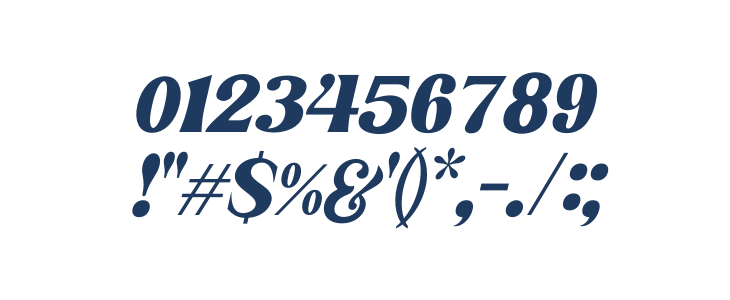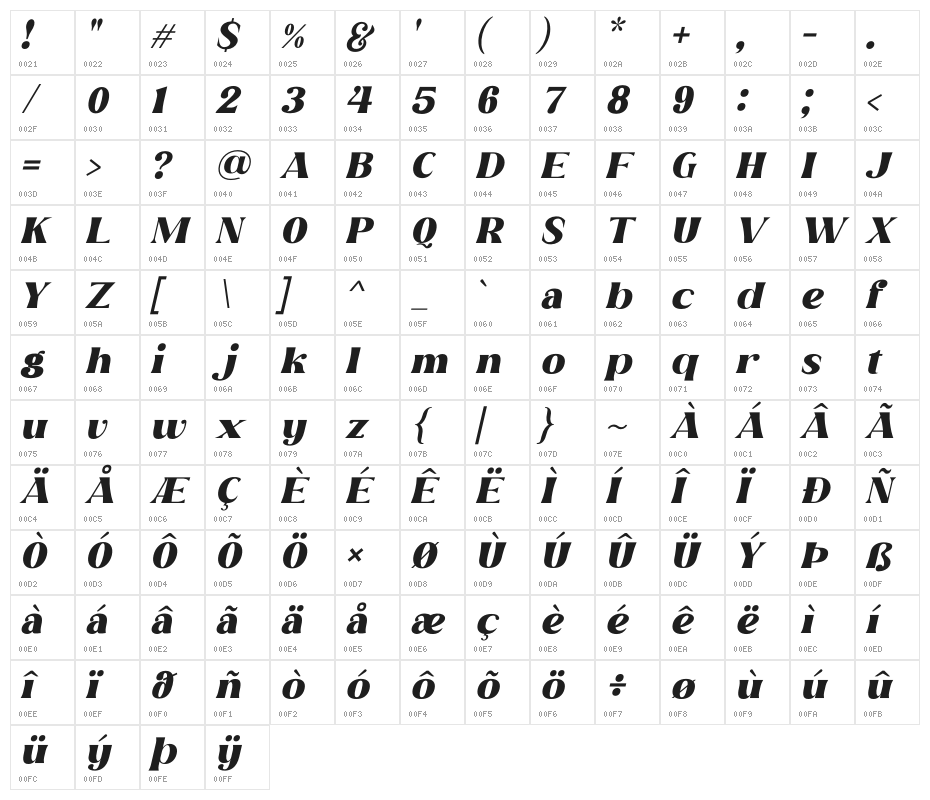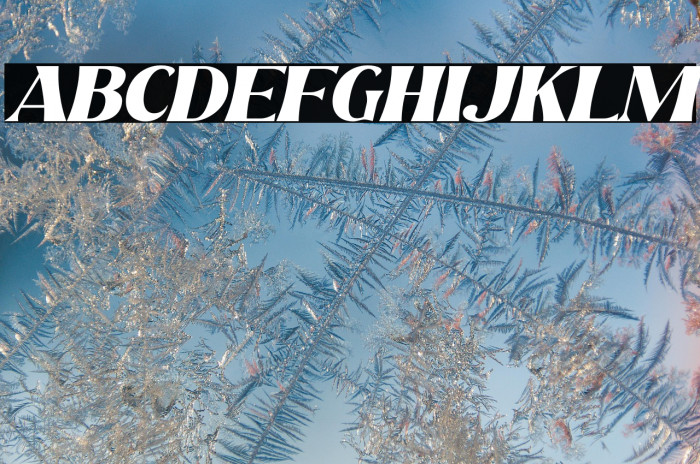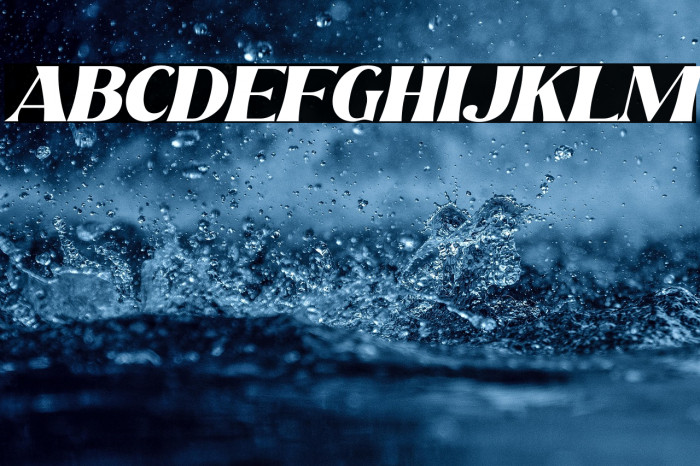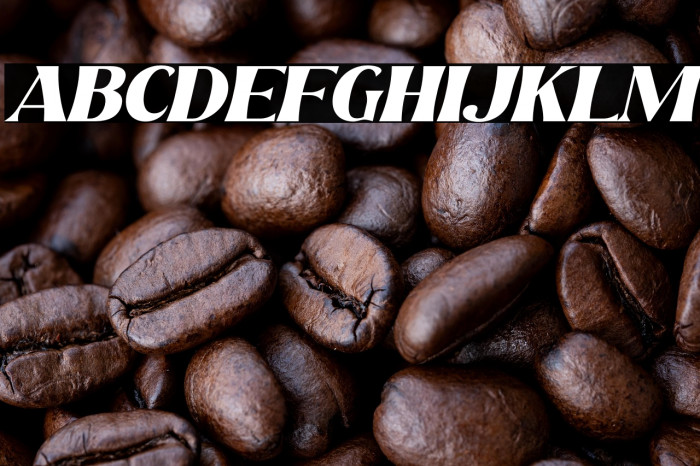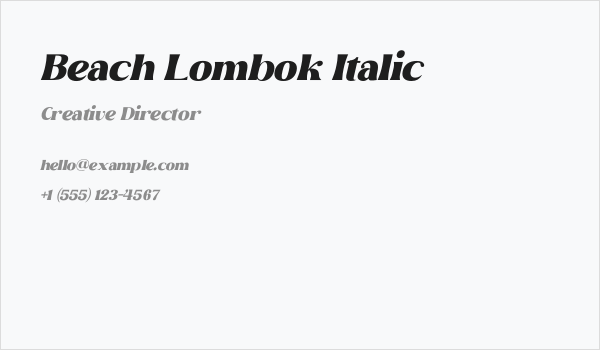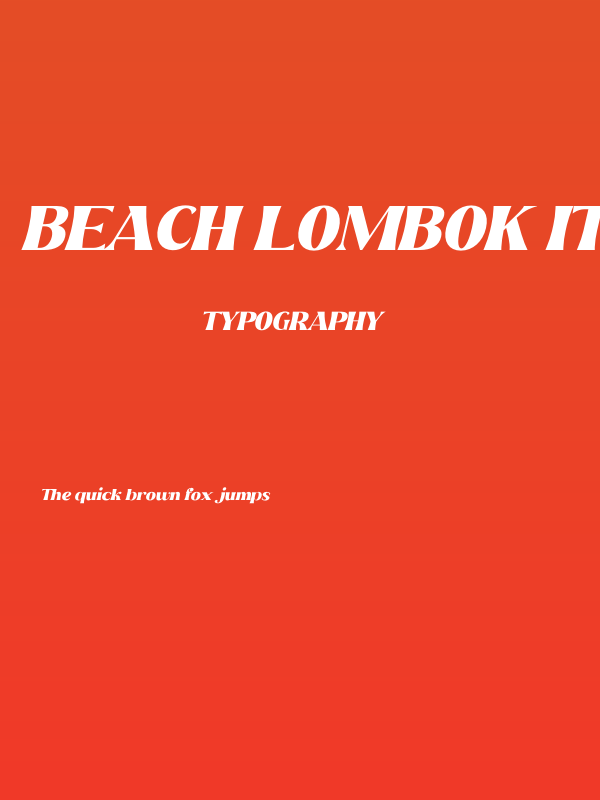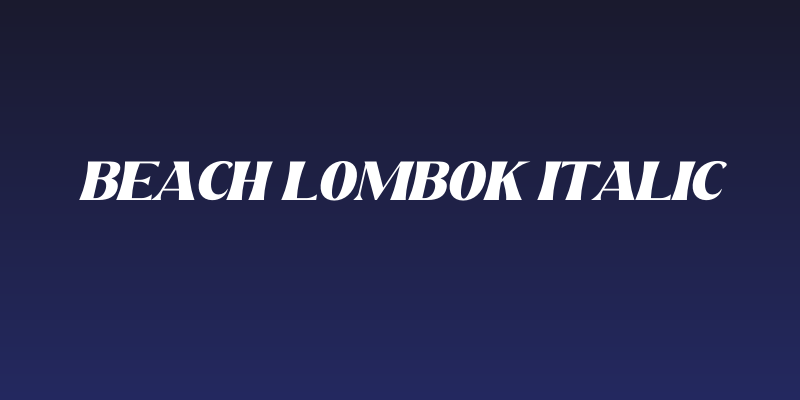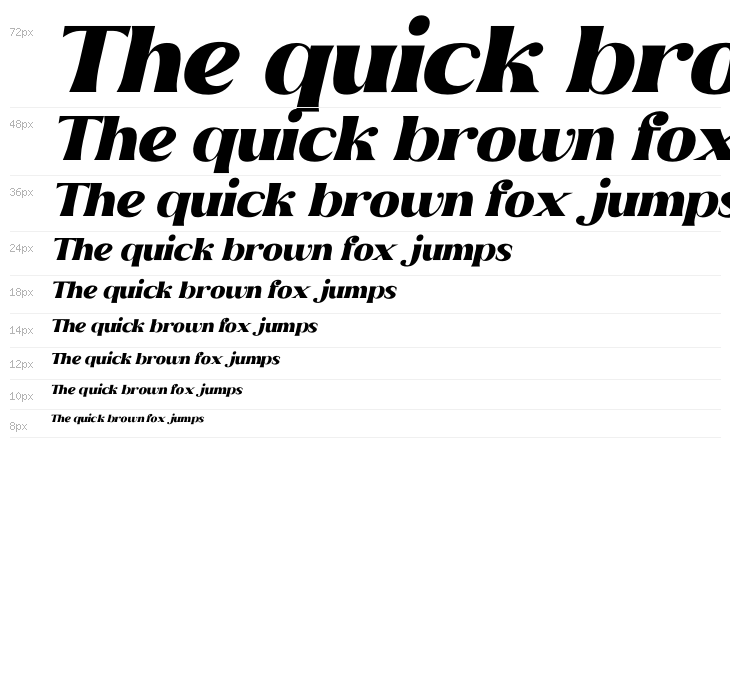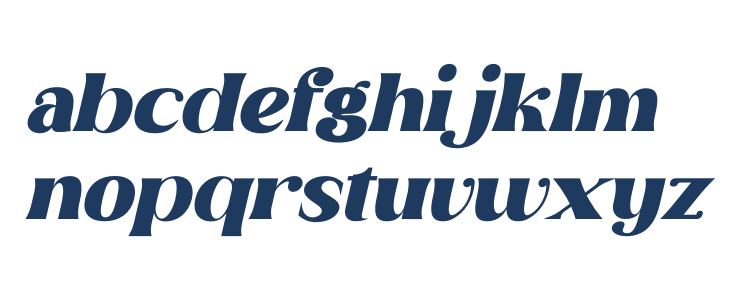
Beach Lombok Italic Font
Beach Lombok Italic Description
This font features a bold and dynamic italic style, characterized by its strong, sweeping curves and pronounced slant. The uppercase letters exhibit a sense of movement and energy, with thick strokes that convey a sense of strength and confidence. The lowercase letters maintain this boldness, with a slightly more compact form that ensures readability. Numerals are equally robust, with a consistent weight that complements the alphabetic characters. Special characters are designed with the same attention to detail, ensuring a cohesive look across all glyphs. The overall impression is one of modern elegance, suitable for making a bold statement.